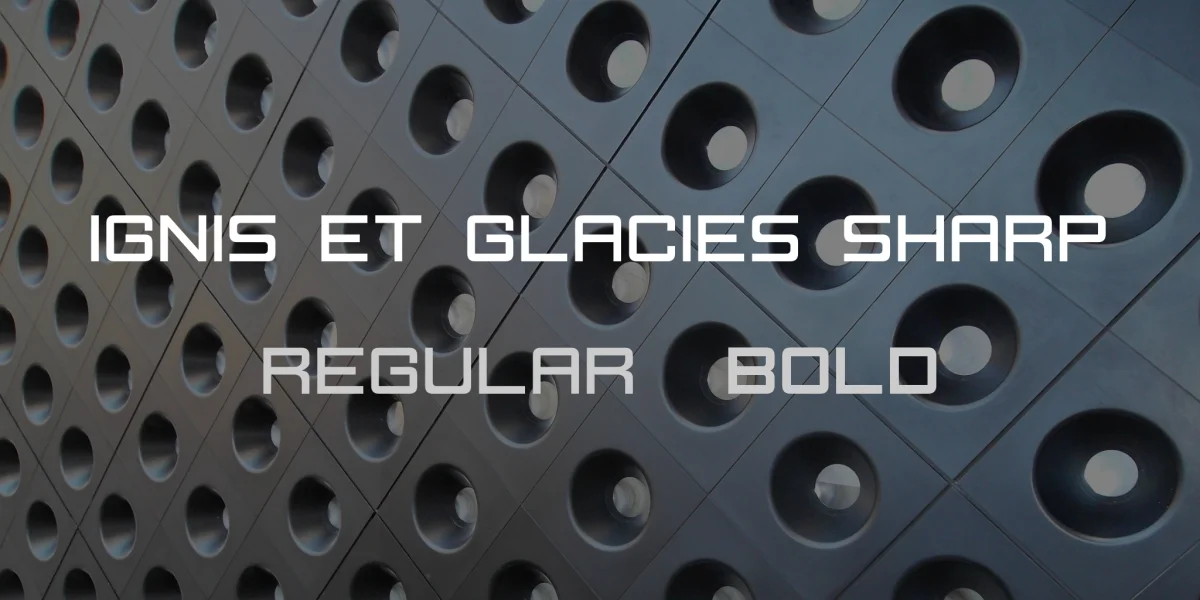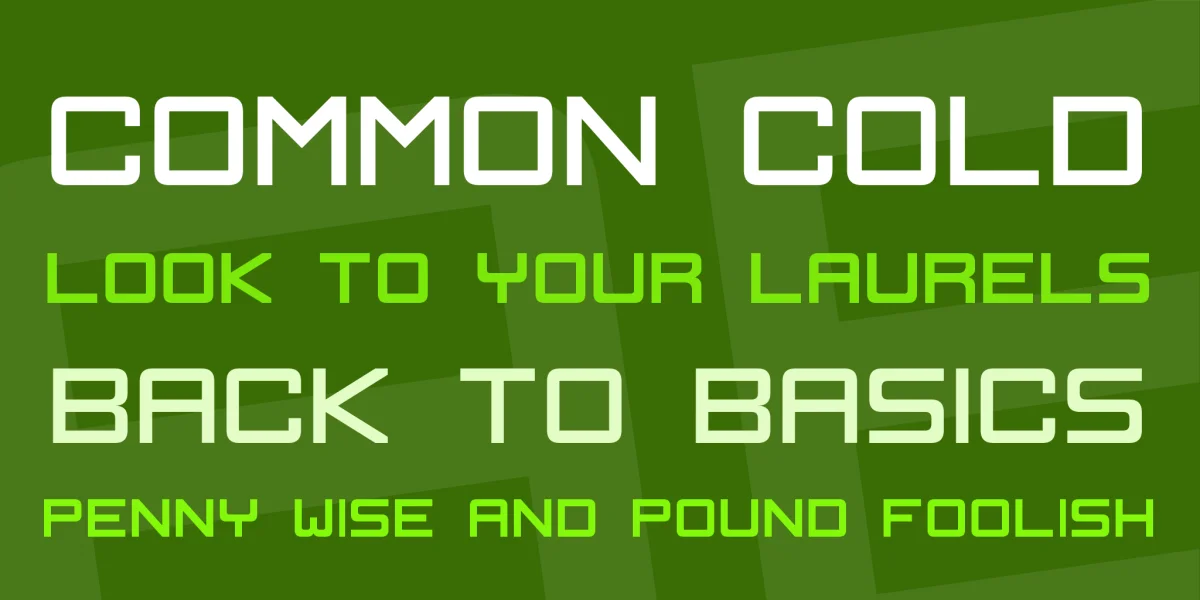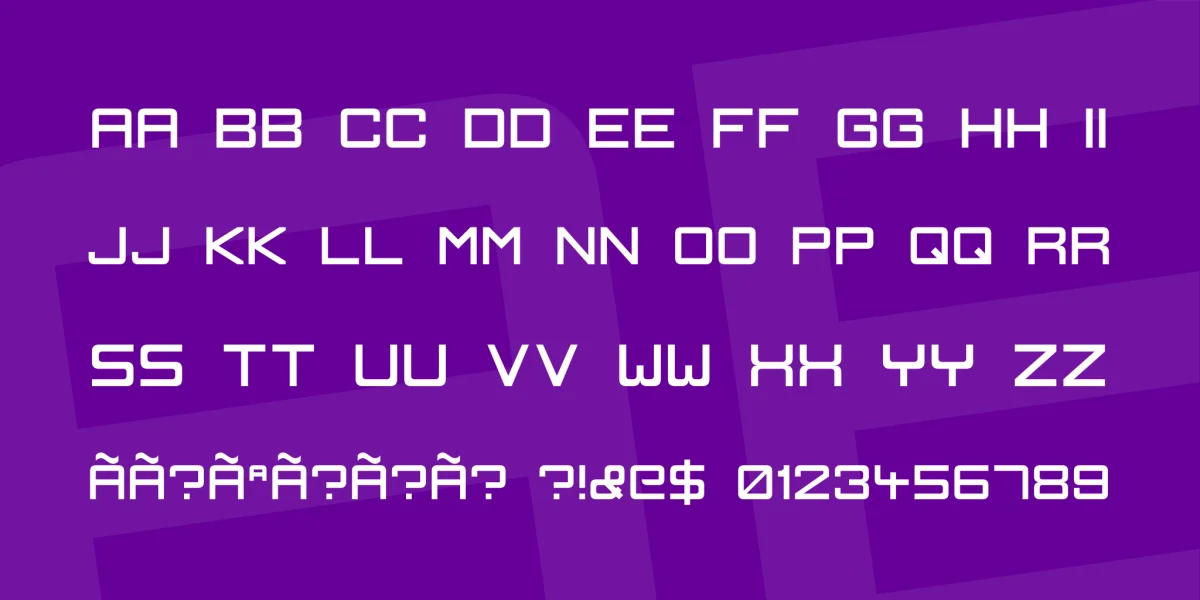
A futuristic sans serif caps face.
This font was made specifically for a wallpaper of the same name. It's Ignis et Glacies Sharp because there might be a round version some day.